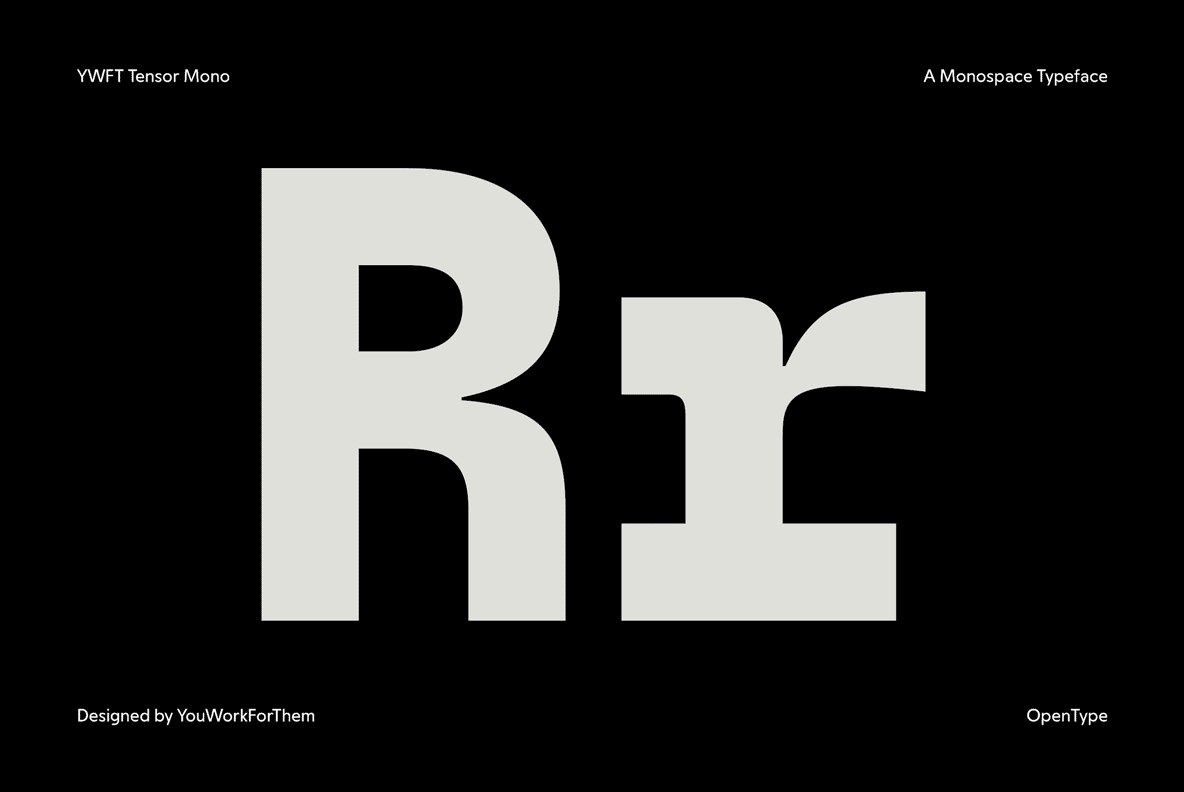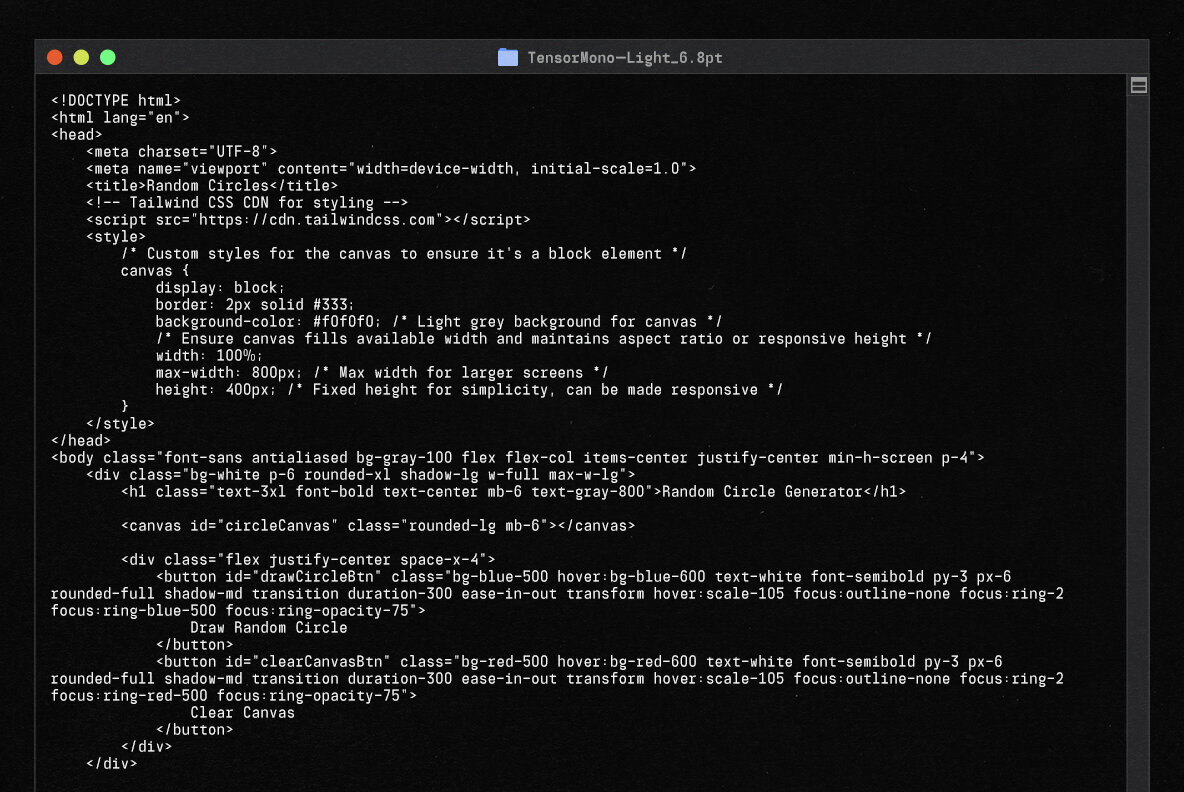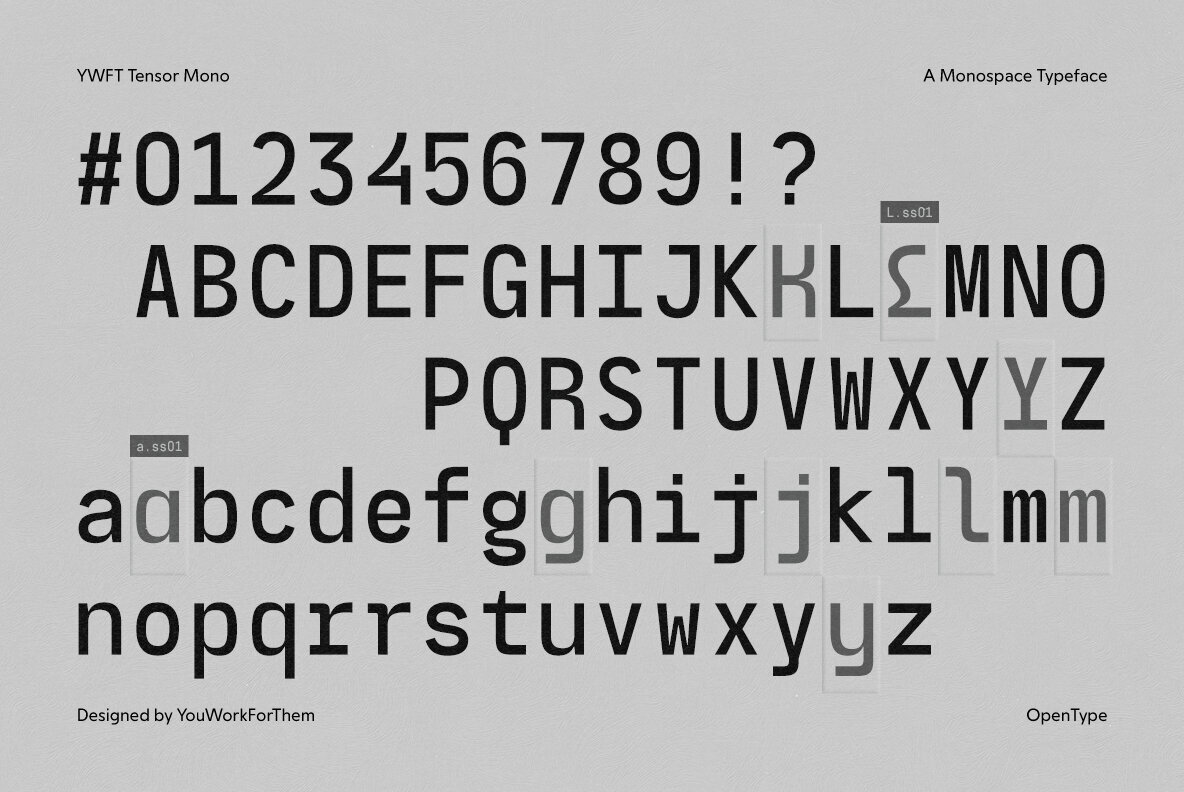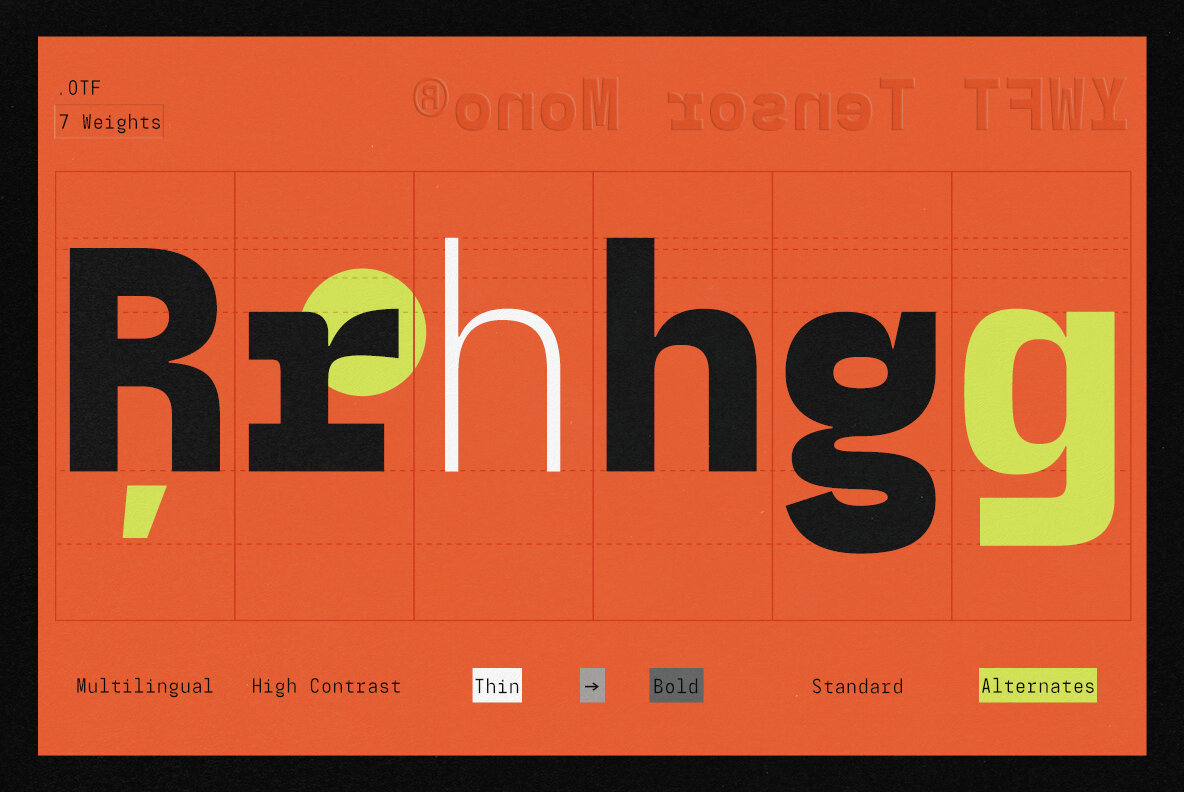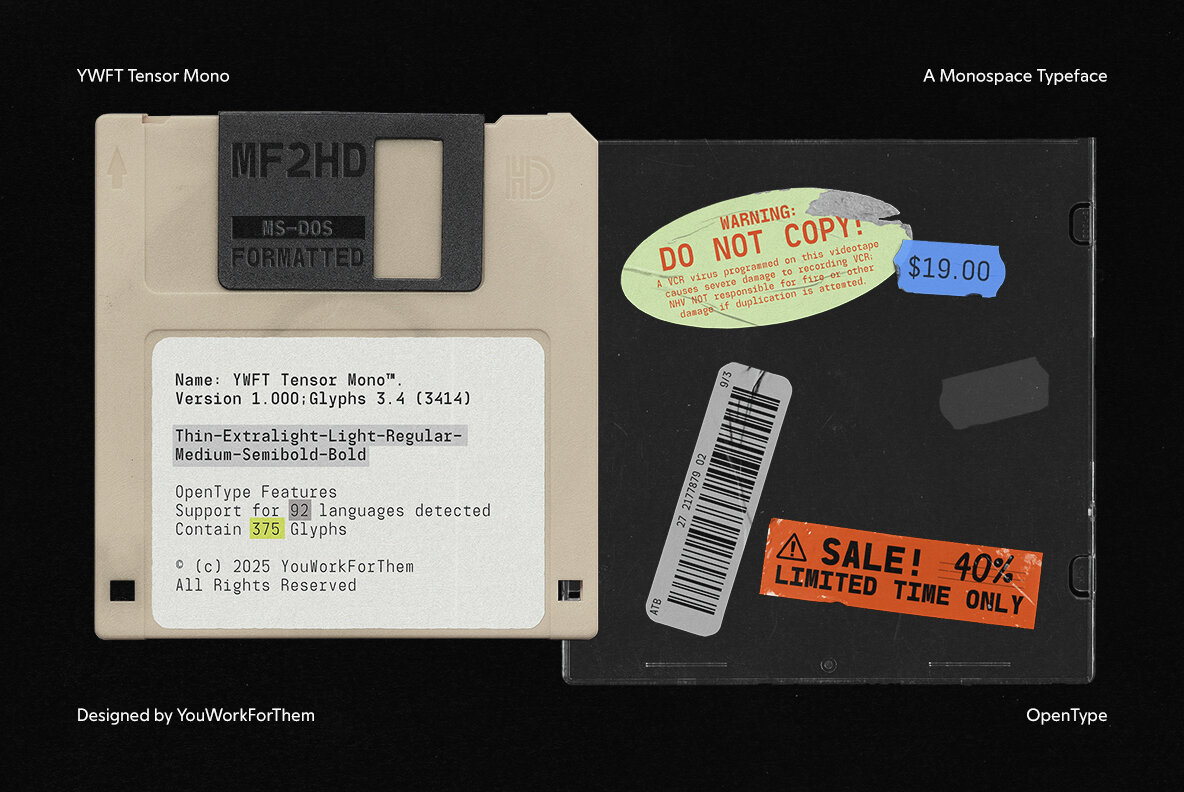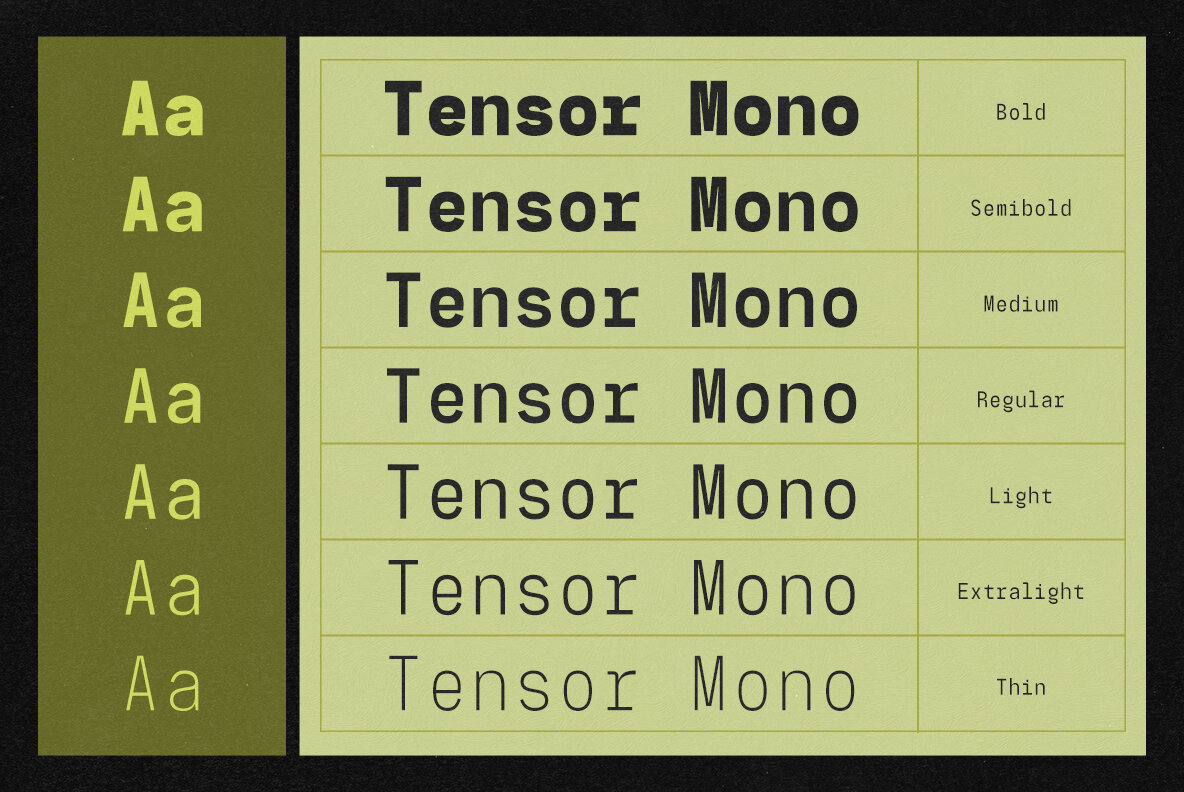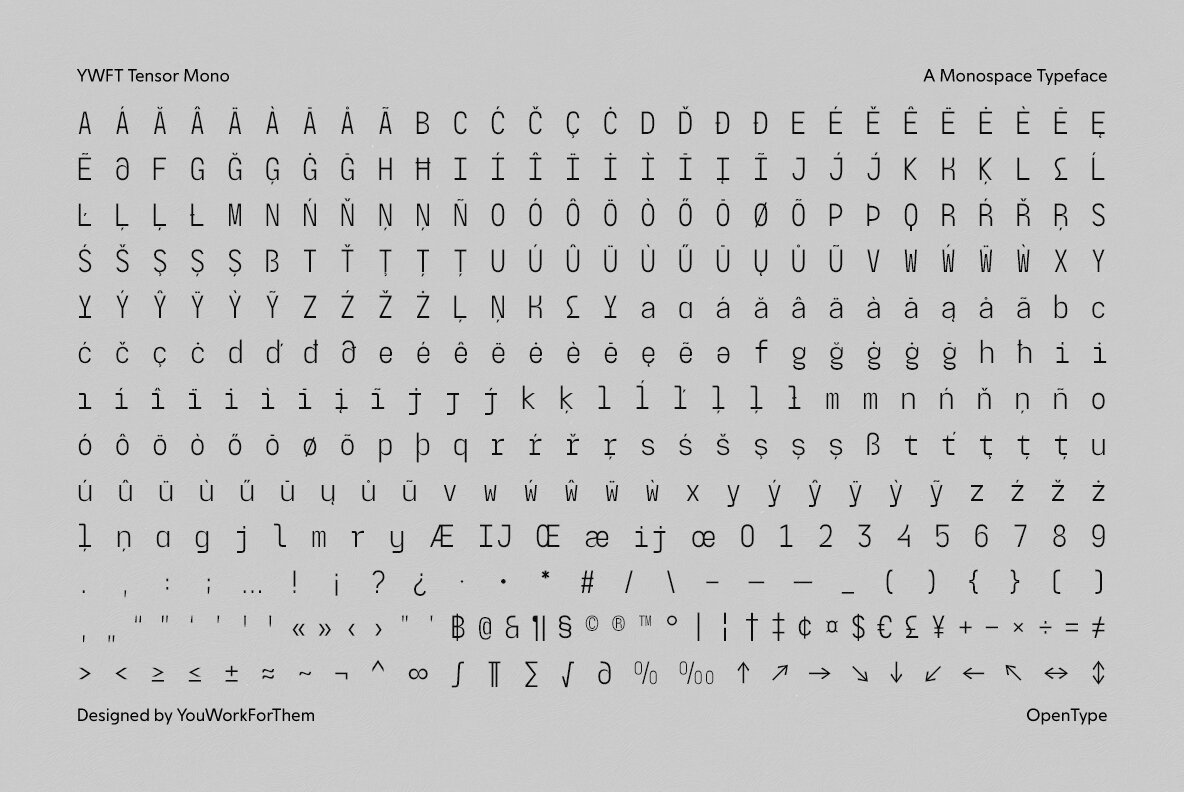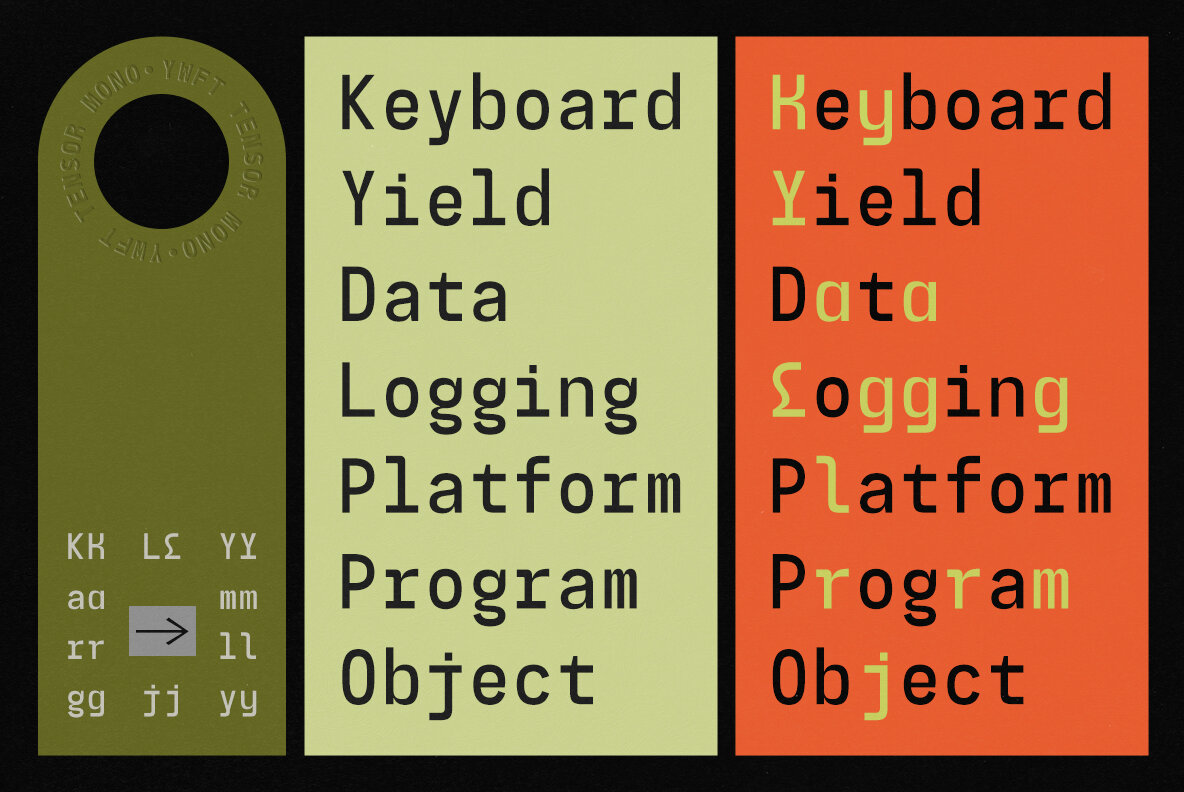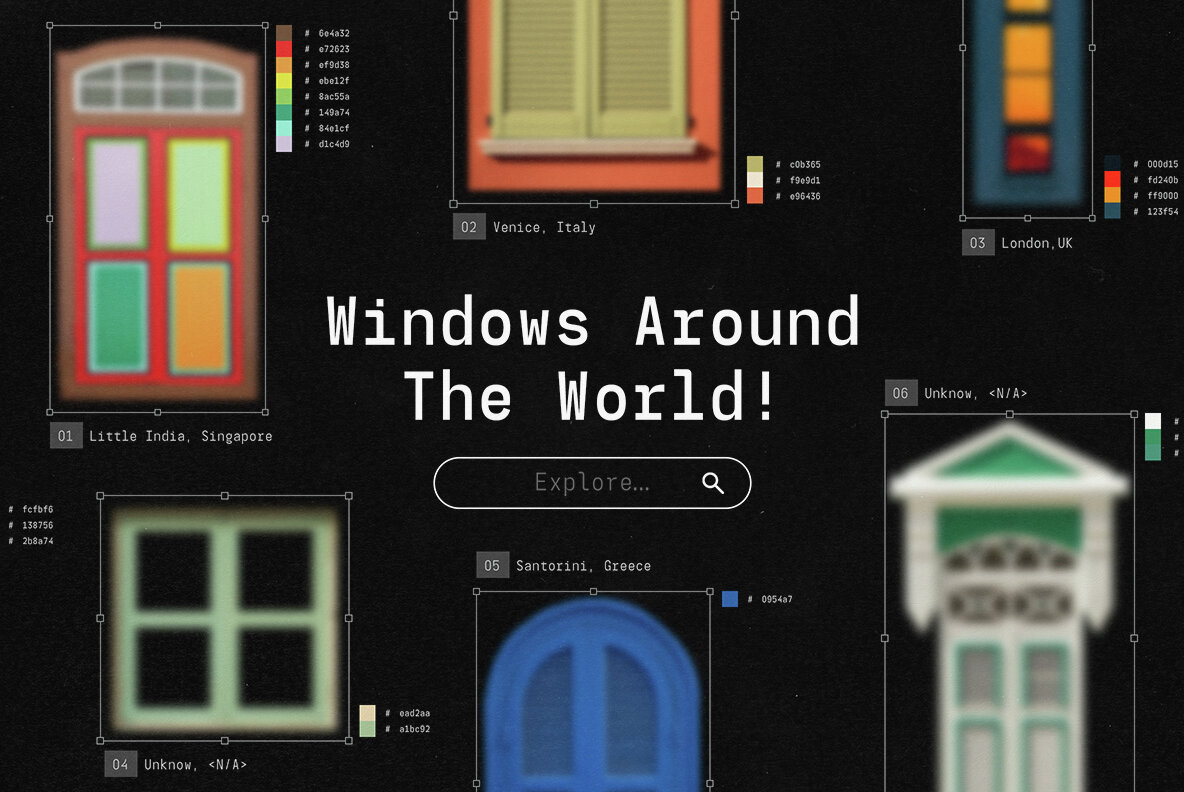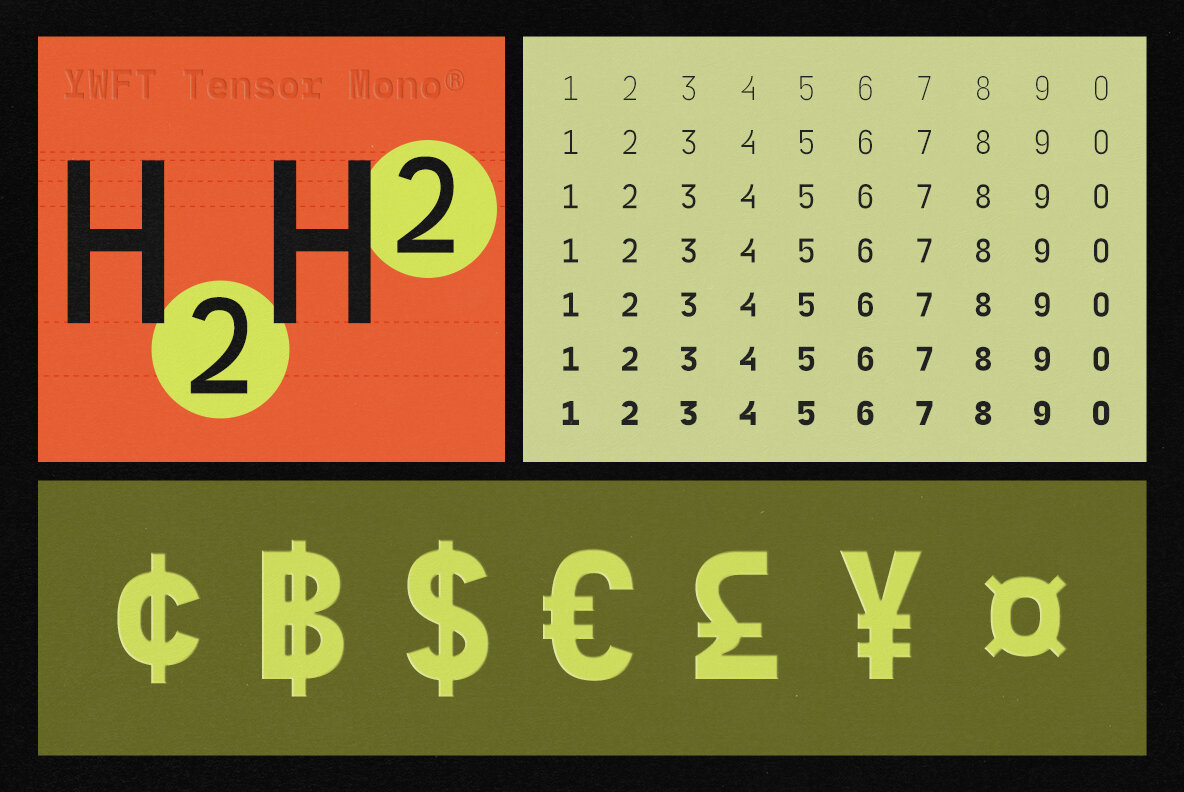
YWFT Tensor Mono Font
YWFT Tensor Mono is a compelling creation from YouWorkForThem, offering a monospace typeface shaped by the essence of machine learning visuals and the ethos of open-source collaboration. Drawing inspiration from code structure and the lucidity of training data, it serves today's digital craftsmen—from interface designers to software engineers—seeking crystal clarity without losing an element of warmth. The typeface features seven distinctive weights, each containing 375 glyphs and supporting OpenType functionalities such as Stylistic Alternates. This technical framework ensures impeccable alignment and precision across characters while providing designers with the flexibility to adapt to various visual demands. While maintaining the fixed-width spacing characteristic of traditional programming fonts, YWFT Tensor Mono introduces humanist curves and thoughtful detailing. Particularly noteworthy are its numerical figures, crafted with rounded, organic forms that infuse warmth into an otherwise structured grid. It stands out in its ability to combine the neutrality expected of monospaced fonts with a subtle human element. Ideal for interface design, data visualization, and screen-centric branding, this typeface confidently navigates marketing presentations and social media posts, as well as integrated development environments or application UI elements. Its straightforward, one-time licensing model circumvents the complexities and elevated costs often associated with other font platforms. As a YouWorkForThem exclusive, YWFT Tensor Mono offers license versatility without subscriptions, accommodating personal, commercial, and enterprise applications. Designers enjoy full autonomy with transparent terms and benefit from cash-back incentives. For more than twenty-five years, YouWorkForThem has championed the creative realm with a focus on accessibility and quality. This font honors that legacy, equipped to meet the demands of future-forward projects. Additional products used for slideshow images:YWFT Tensor Mono: Inspired by AI Systems & Open-Source Innovation
Technical Precision Across Seven Weights
Designed for Modern Digital Workflows